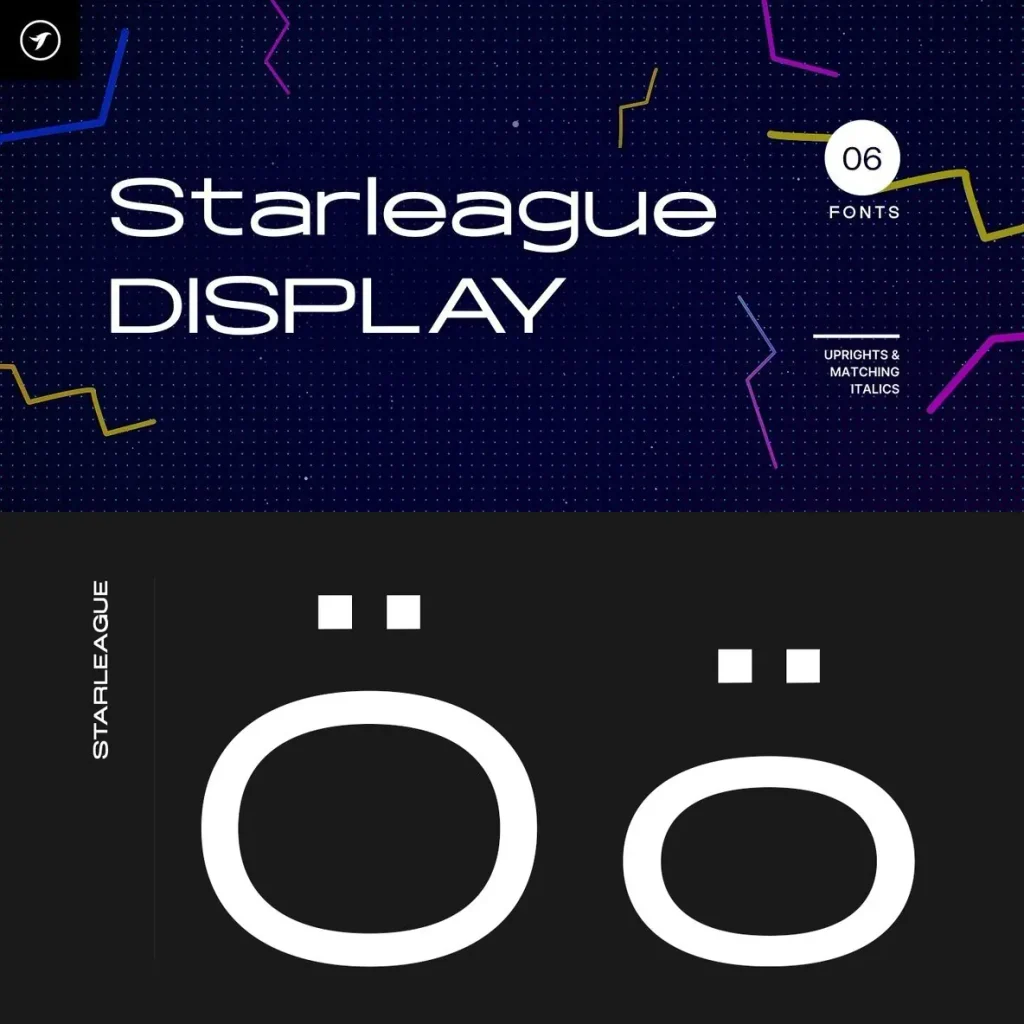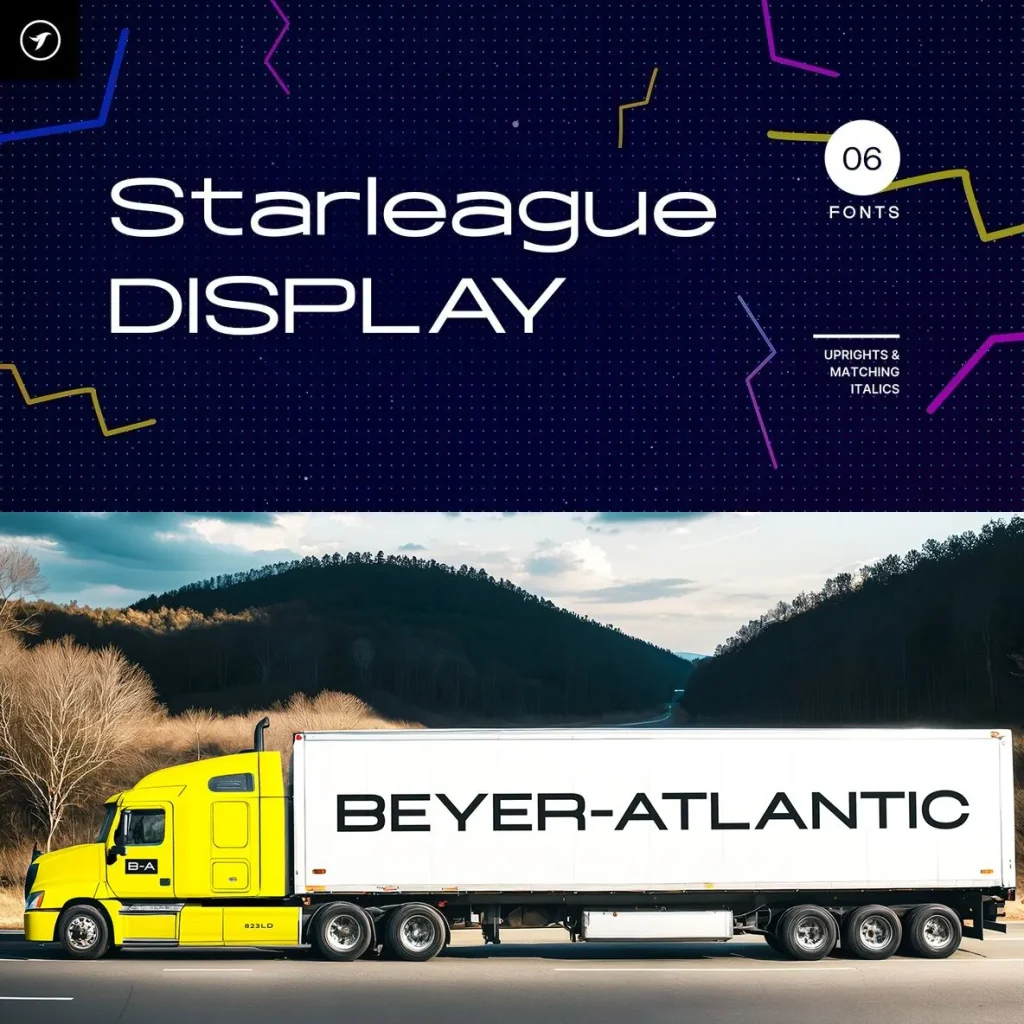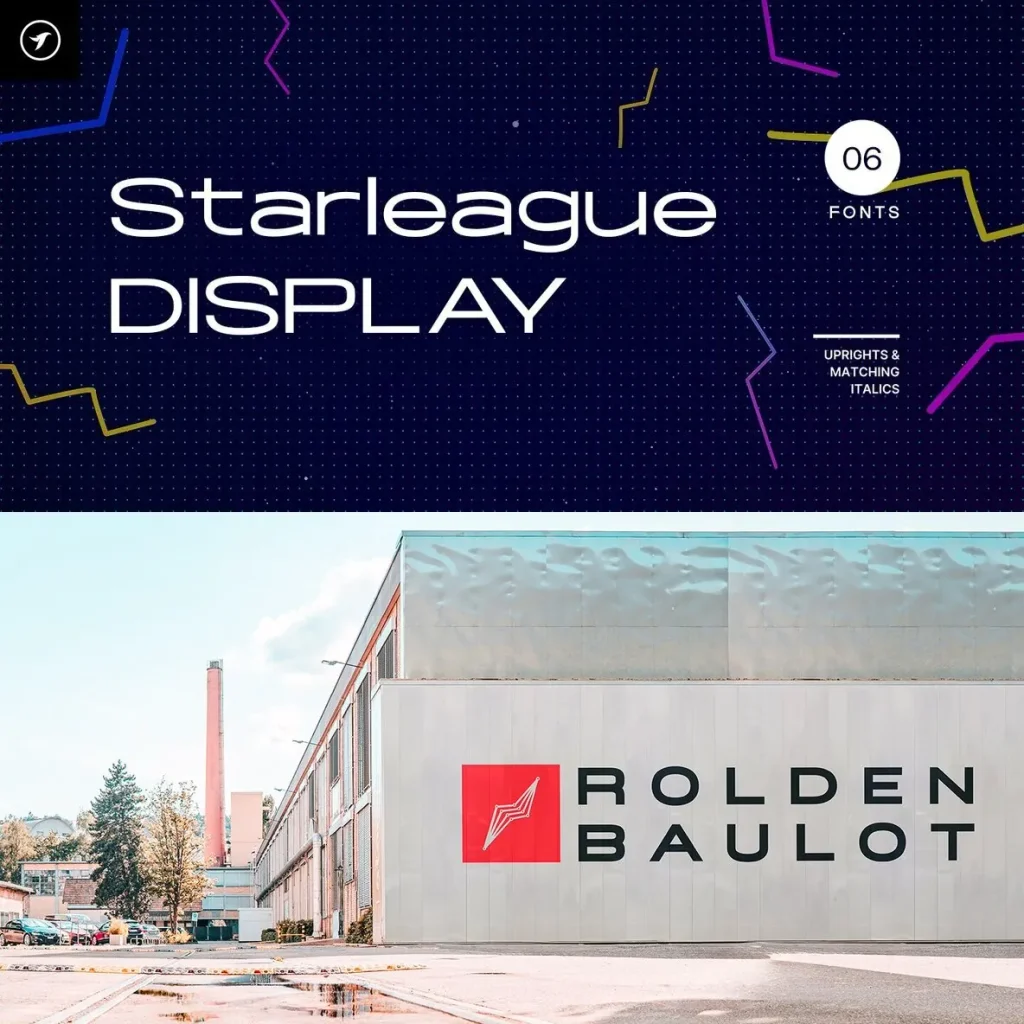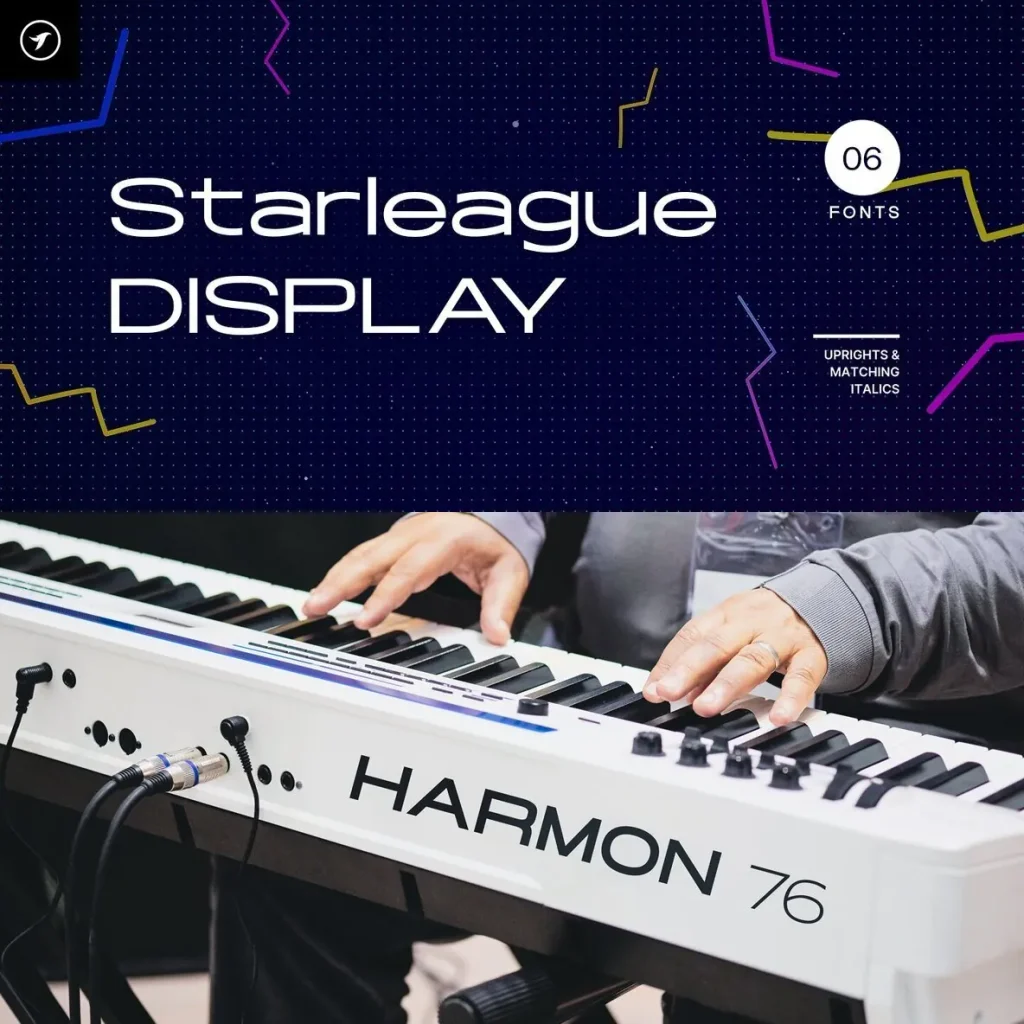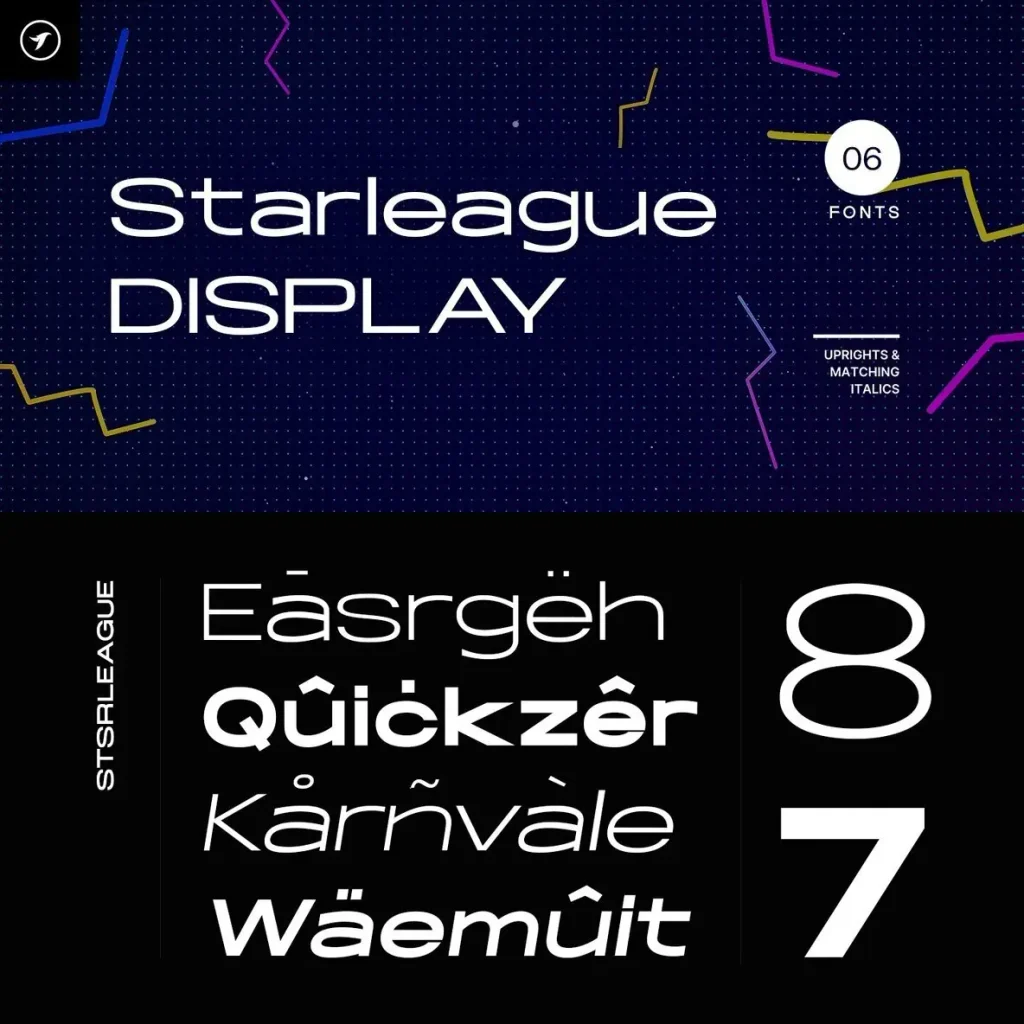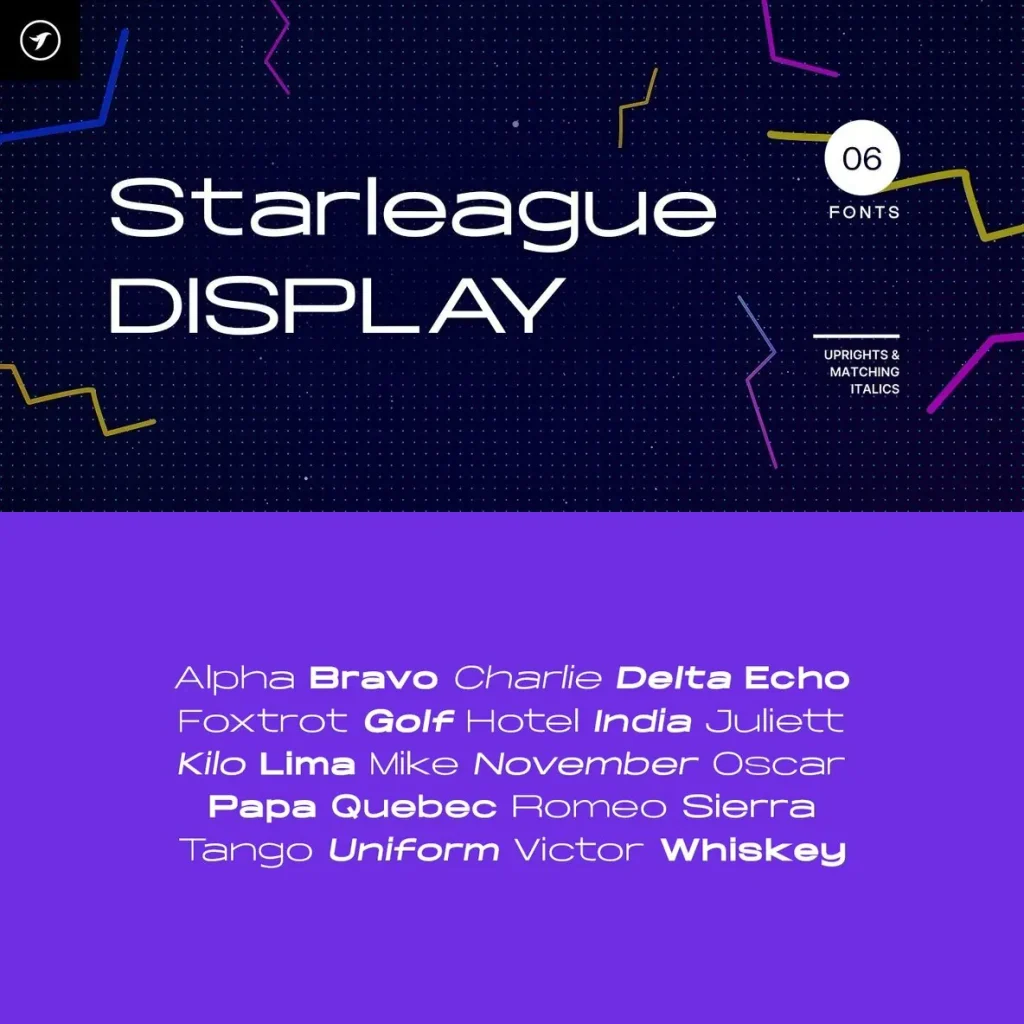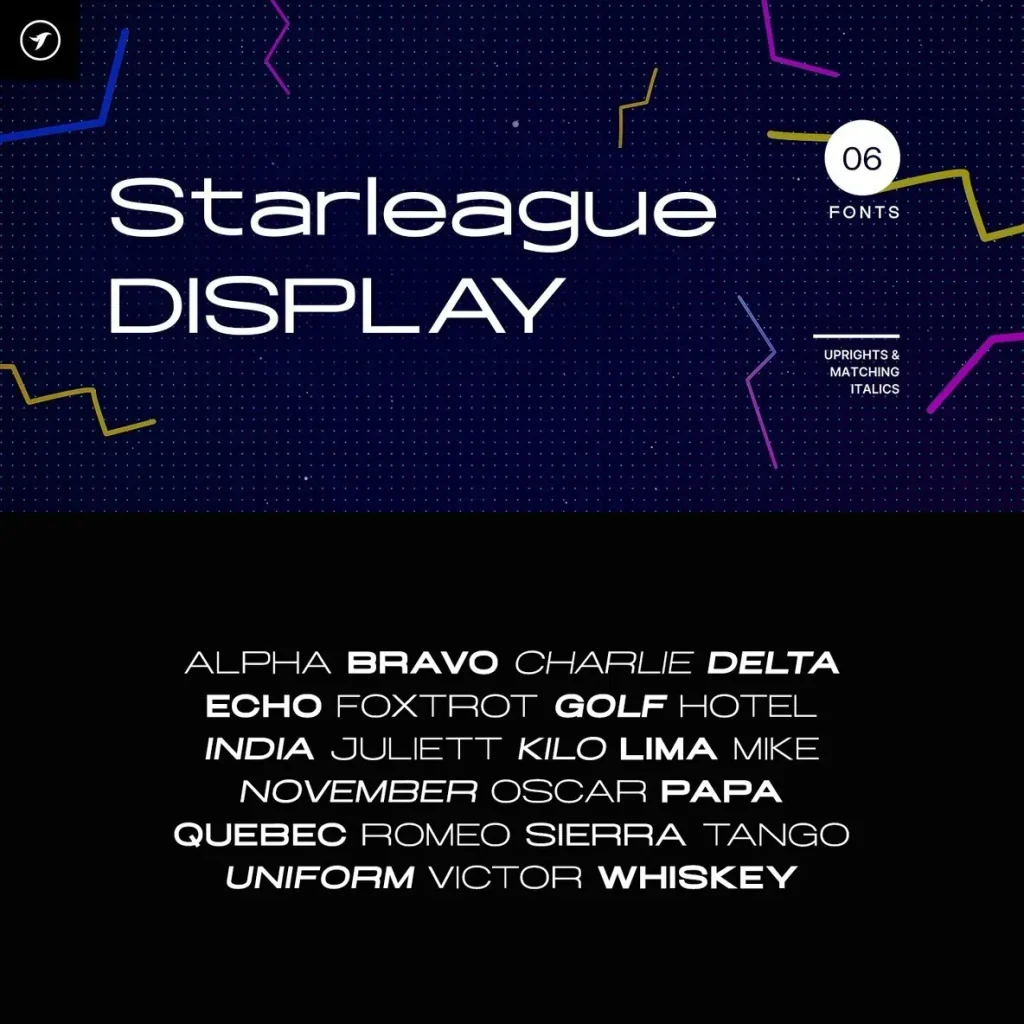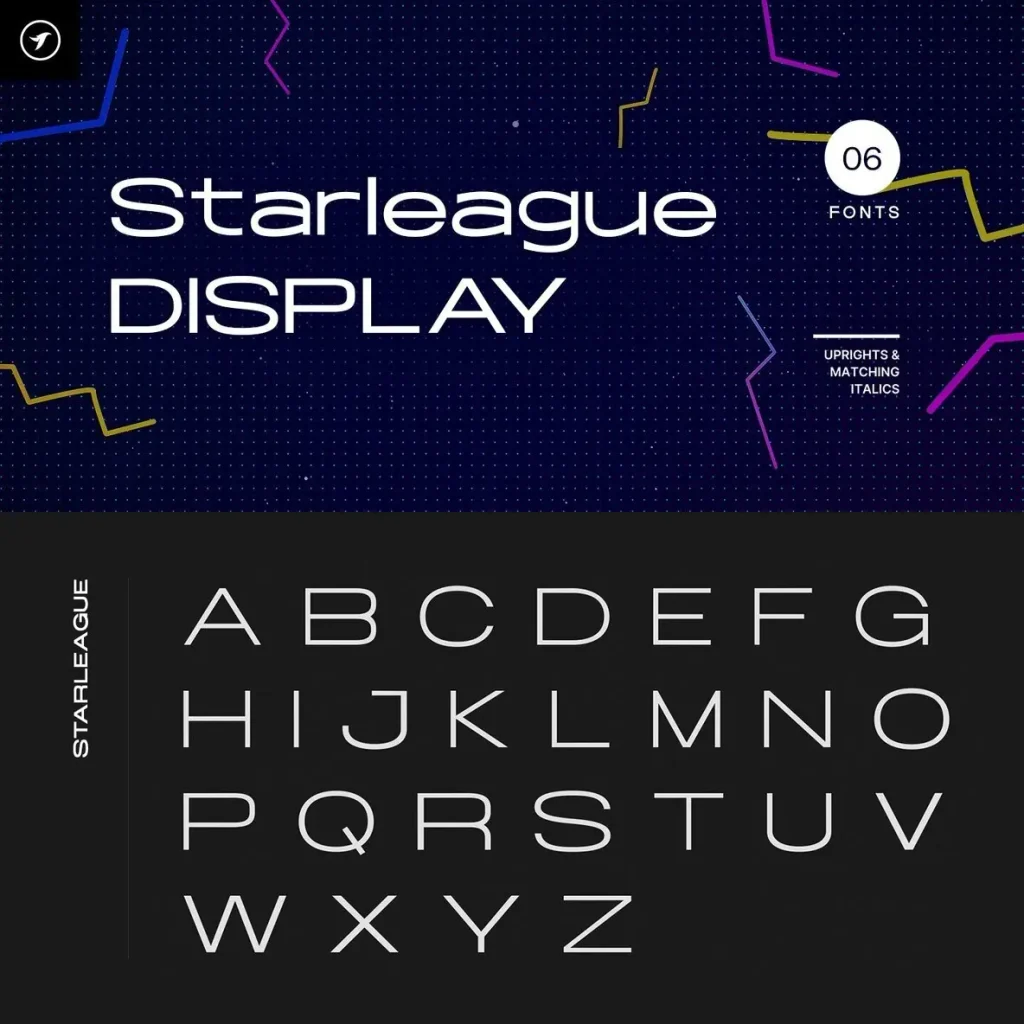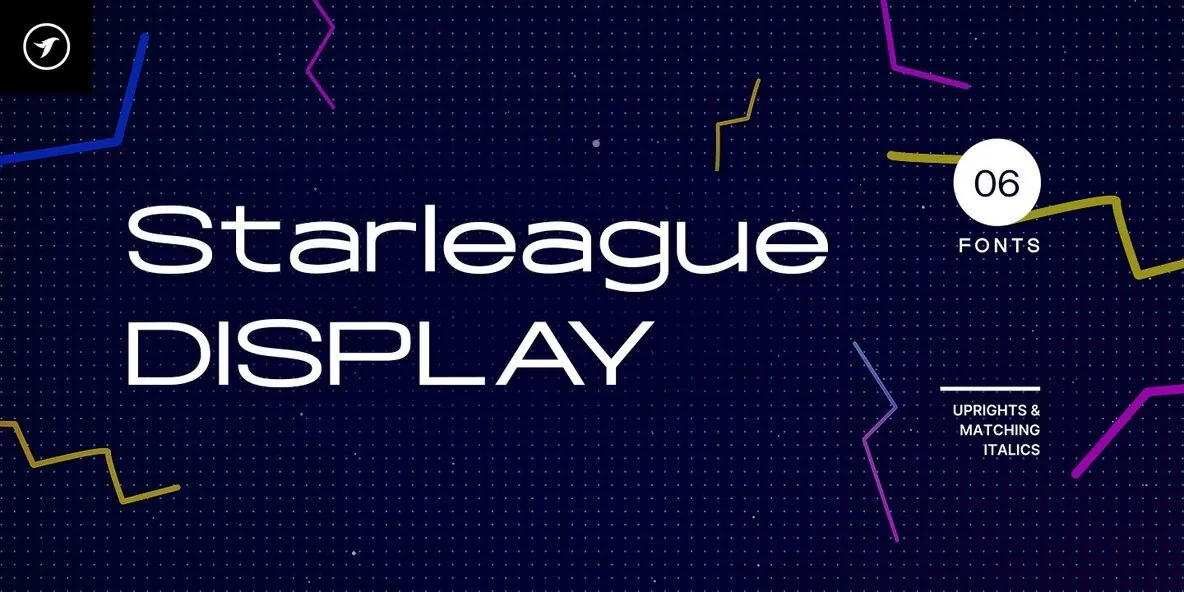
Starleaugue — Bold Motion for Display
Starleaugue is a bold display typeface family with a futuristic, energetic visual style. Its strong geometric shapes, dynamic proportions, and confident presence give headlines and large-format typography a clear sense of force and direction.
Designed for modern visual communication, Starleaugue fits branding, posters, sports graphics, entertainment projects, and digital experiences that need a powerful identity. It brings impact without losing structure, making it a strong choice for designers working on expressive, high-visibility typography.